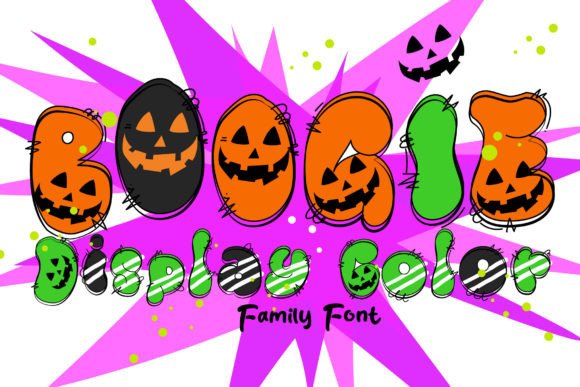
Dive into the whimsical world of Boogie Font, a colorful and captivating creation by KtwoP. Inspired by the playful spirit of Halloween, this font is a feast for the eyes, ready to add a touch of magic to your creative projects.
With its playful curves, intricate details, and enchanting hues, Boogie Font is the perfect choice for those seeking a font that speaks to their creative soul. Whether you're designing posters, flyers, school projects, book covers, or even movie posters, Boogie Font will elevate your work to new heights.
This font is not just visually stunning; it's also incredibly versatile. It effortlessly adapts to a wide range of design styles, from the whimsical and childlike to the sophisticated and elegant. Whether you're creating invitations for a Halloween party or designing a logo for a flower shop, Boogie Font will seamlessly blend with your vision.
Unleash your creativity and let Boogie Font take you on a journey of imagination. Its charming characters will add a touch of enchantment to your designs, leaving a lasting impression on your audience.